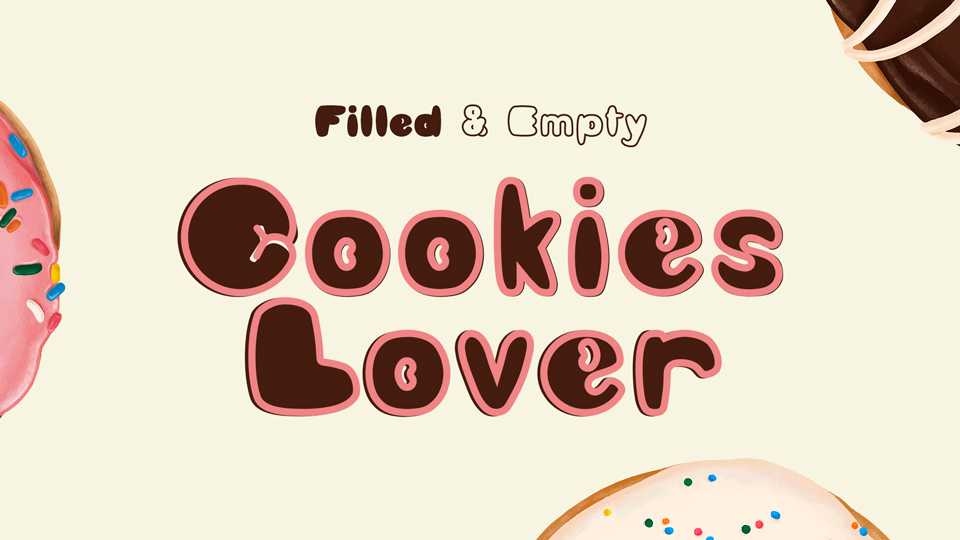
Download Cookies Lover font, a fun and lovely handwritten typeface in two styles designed for captivating and impactful titles, in particular for the world of food and cake design.
Designer: Marika Sartori